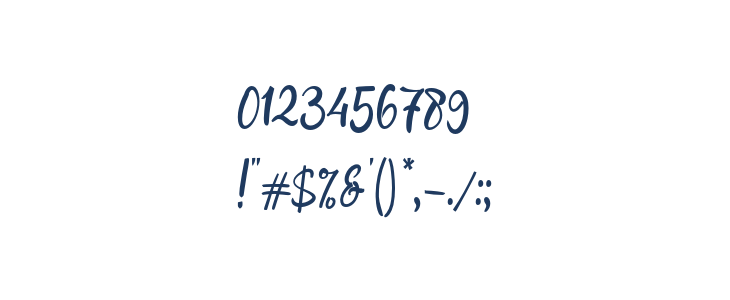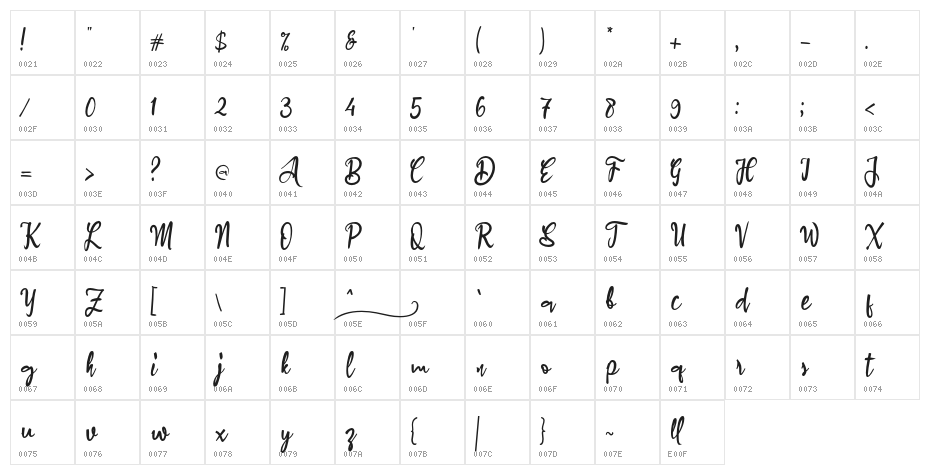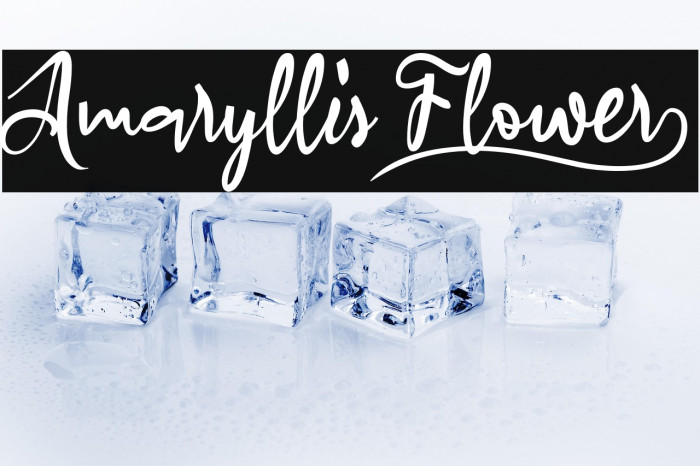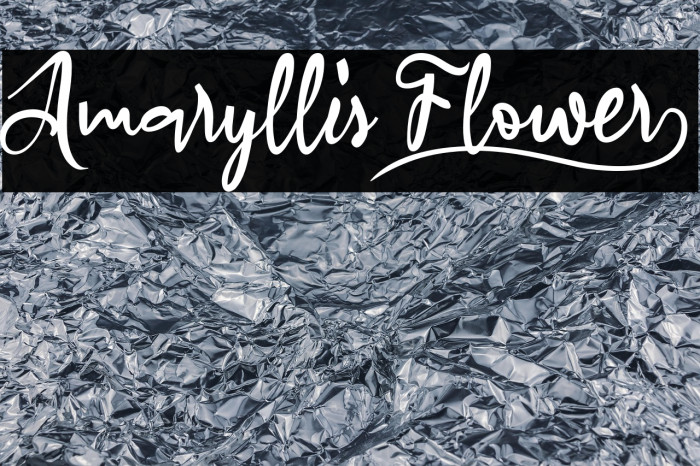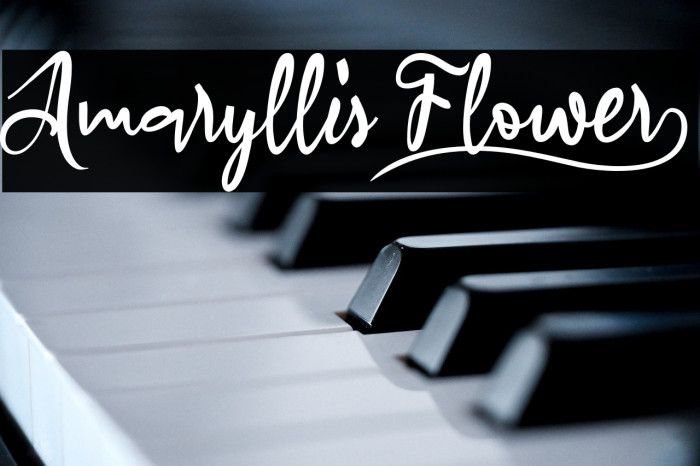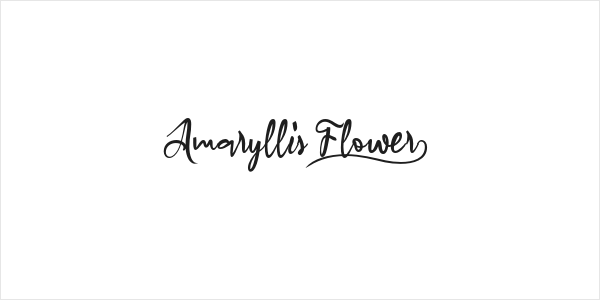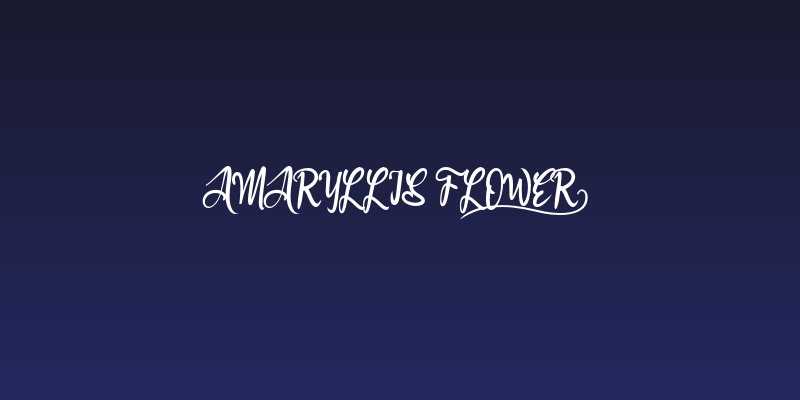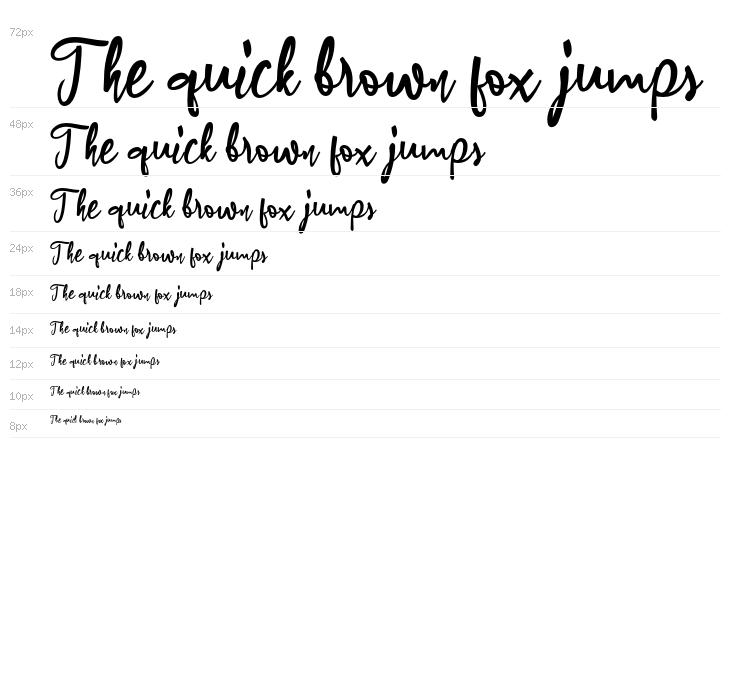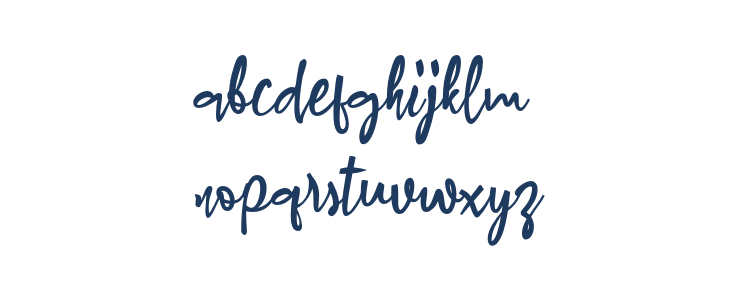
Amaryllis Flower_ Font
Amaryllis Flower_ Description
This font features a lively and expressive script style, characterized by its flowing, cursive letterforms. The uppercase letters are bold and dynamic, with elegant loops and swashes that give a sense of movement and grace. The lowercase letters maintain a consistent flow, complementing the uppercase with their smooth curves and connected strokes. Numbers and special characters are designed with the same fluidity, ensuring a cohesive look across all elements. The overall appearance is both artistic and legible, making it suitable for creative and decorative applications.
| Use Case | Logos, Invitations, Decorative Text |